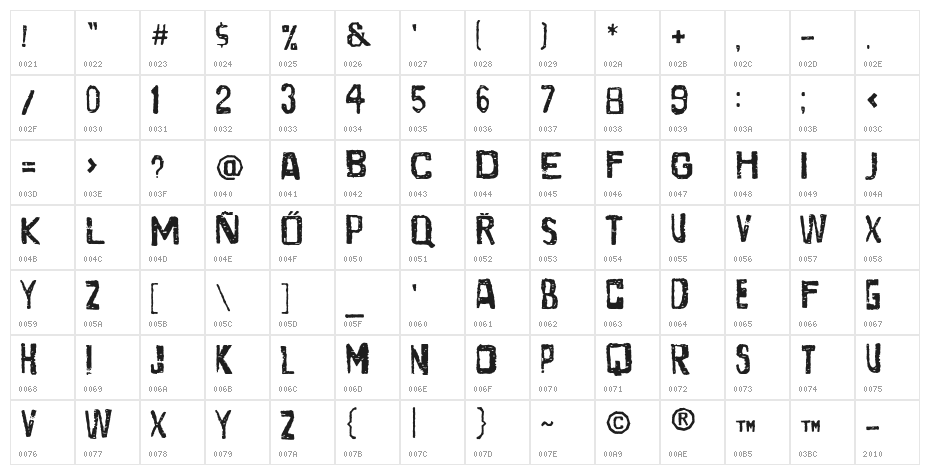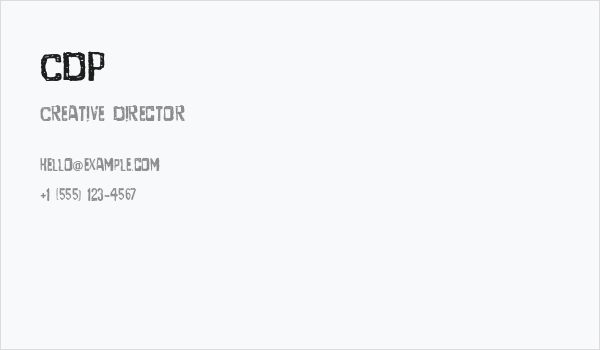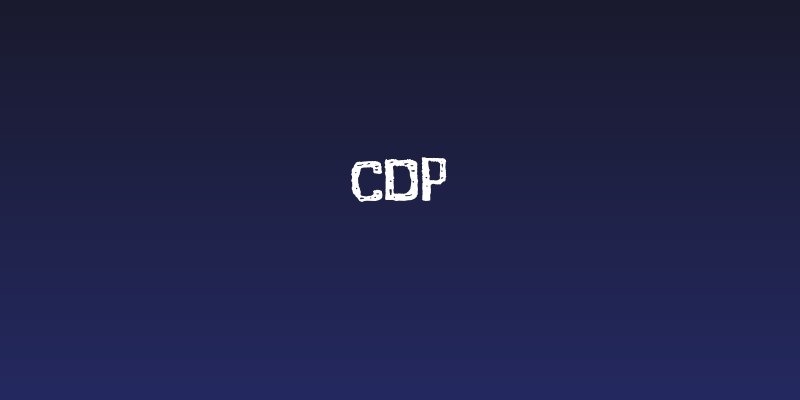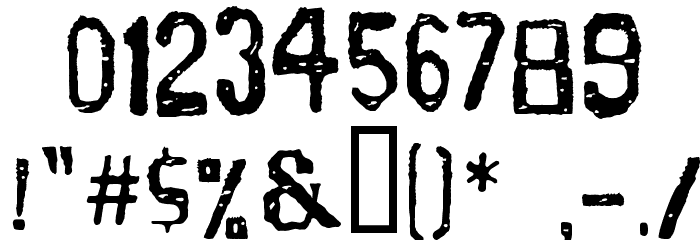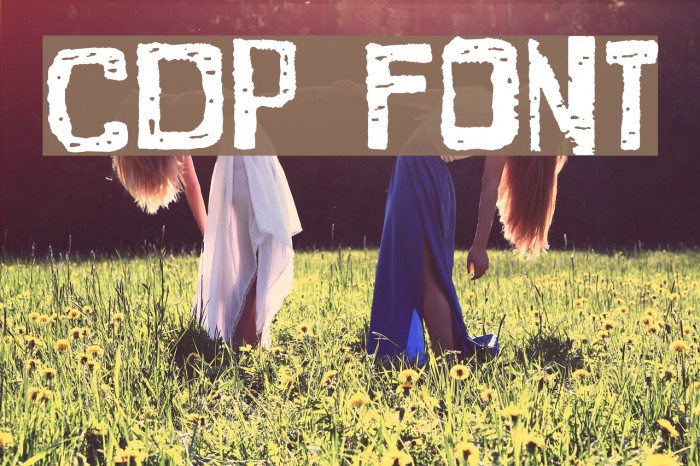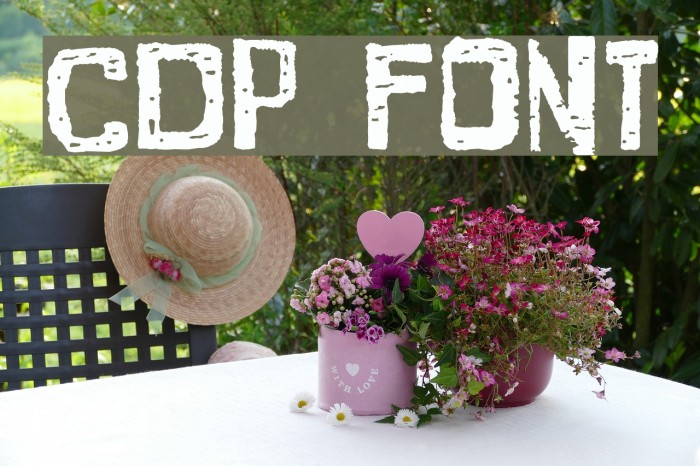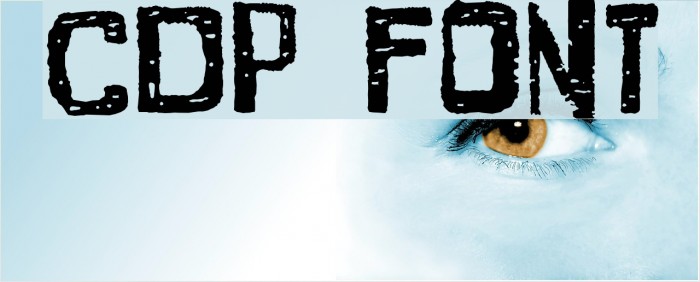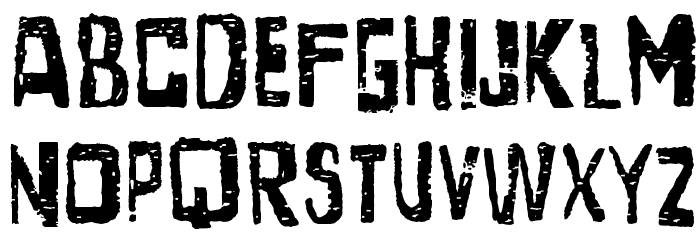
CDP Font
CDP Description
This font exhibits a rugged, distressed style with a textured appearance that mimics the look of worn or eroded surfaces. The characters are bold and impactful, with an irregular outline that adds to the vintage and grunge aesthetic. The uppercase and lowercase letters maintain a consistent height, while the numbers and special characters follow the same distressed theme. This font is ideal for projects that require a bold statement or a retro, industrial feel.
| Overall Style | Vintage |
| Proposed Projects | Ideal for posters, album covers, branding for edgy or retro-themed products, and any design that requires a strong, impactful typeface. |